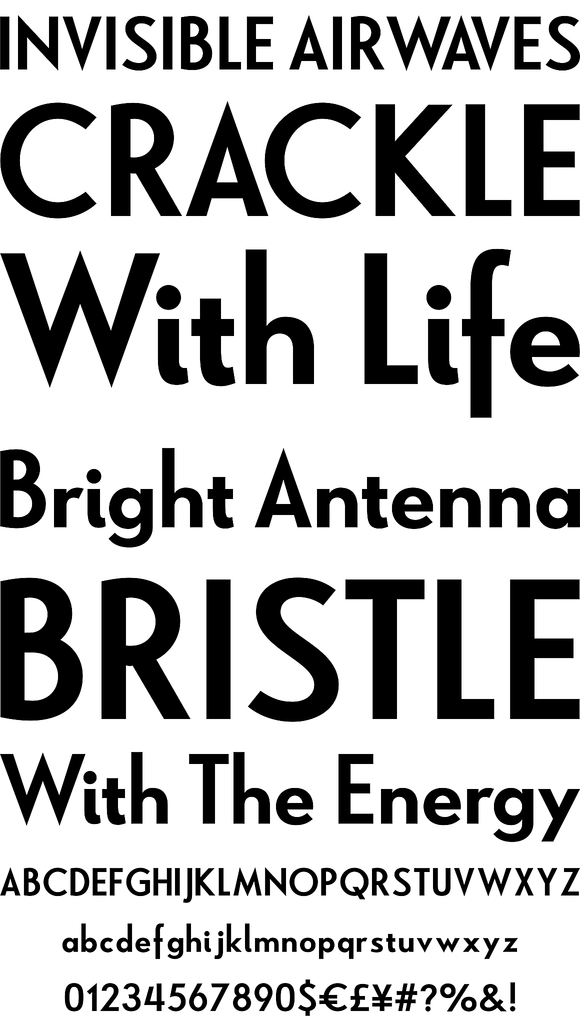
Le Havre
Le Havre is a geometric sans serif inspired by the golden era of the passenger ship, when getting to your destination was a delight in and of itself. Compressed capitals, a low x-height and geometric construction give this art deco inspired sans a unique look that looks to the past for inspiration, but is a new contemporary design usable in a wide range of graphic settings.
Le Havre features eighteen art deco titling alternates, ligatures and old style figures. Le Havre is named for the port where many a famous luxury cruise liner was launched in the 1930s. One of the best examples of art deco luxury cruise liner advertising can seen in the famous poster advertising the SS Normandie by the French designer Adolphe Mouron Cassandre.